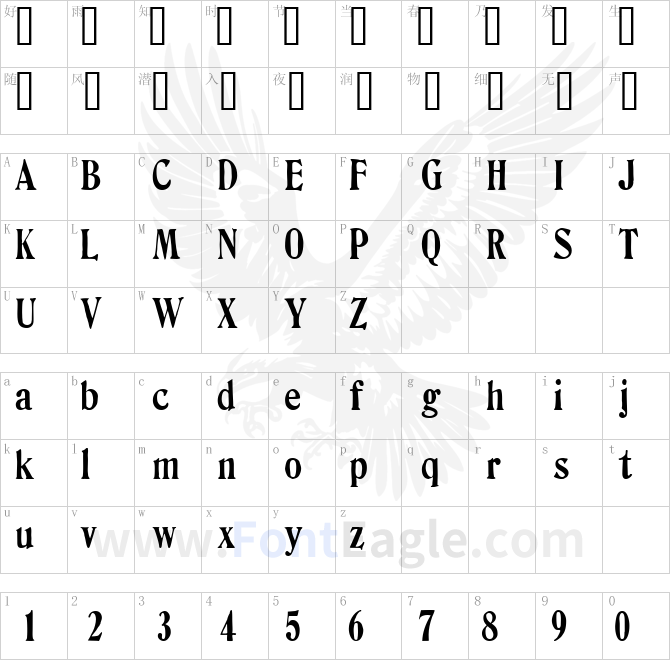
- Font name:Columbia Stamp
- Font Copyright:COLUMBIA STAMP computer font v1.0 © 2004 Harold Lohner • HLohner@aol.com • www.haroldsfonts.com Based on a set of vintage rubber stamps.